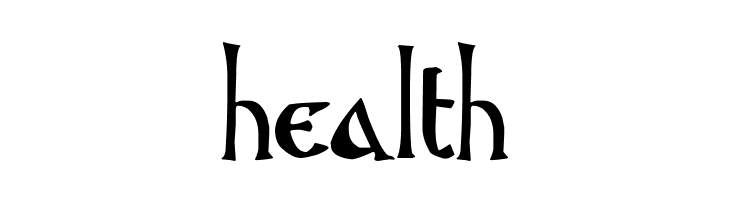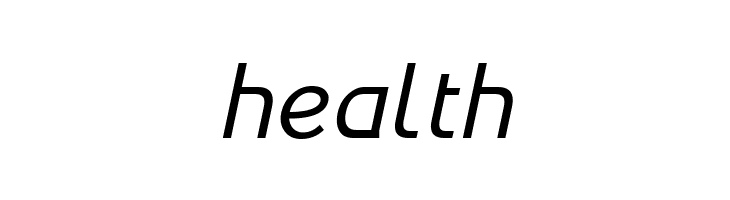
A bold, modern sans-serif font with clean lines and excellent legibility.
A clean, modern sans-serif typeface with balanced characters and consistent stroke width.
A modern, clean sans-serif font with low contrast and a sleek appearance.
A playful, hand-drawn font with bold, rounded characters and a whimsical style.
A bold, futuristic font with sharp, angular lines and geometric shapes.
A bold, geometric font with a modern and assertive style.
A pixelated, monospaced font with a retro digital aesthetic.
A bold, pixelated font with a retro digital style.
A pixelated, retro font with a blocky, geometric style.
A bold, flame-inspired font with jagged, dynamic characters.
A bold, flame-inspired font with jagged outlines and dynamic energy.
A bold, playful serif font with rounded serifs and a vintage charm.
A playful, casual handwritten font with smooth, rounded edges.
A bold, italic, and playful font with rounded edges and a dynamic slant.
A bold, playful font with rounded edges and a hand-drawn feel.
A playful, hand-drawn italic font with rounded characters and consistent strokes.
A playful, rounded font with subtle curves and a friendly appearance.
A bold, hand-drawn font with a rugged, brush-painted appearance.
A playful, bold font with rounded, hand-drawn strokes.
A decorative font with a calligraphic and artistic style, featuring bold strokes and unique serifs.
A bold, decorative font with dynamic strokes and whimsical flair.
A whimsical and artistic font with exaggerated curves and playful details.
An ornate and decorative font with intricate details and a whimsical touch.
A clean and elegant serif font with a light weight and classic design.
A bold serif font with strong, thick strokes and a classic aesthetic.
A classic serif font with modern elements, offering clarity and elegance.
Elegant serif font with a subtle italic slant and moderate stroke contrast.
Elegant cursive font with a slight slant and medium contrast.
A refined serif font with light weight and classic proportions, offering elegance and readability.
A bold serif font with strong strokes and a classic design.
A bold slab serif font with a classic yet modern appeal.
A bold, pixelated font with a retro, digital aesthetic.